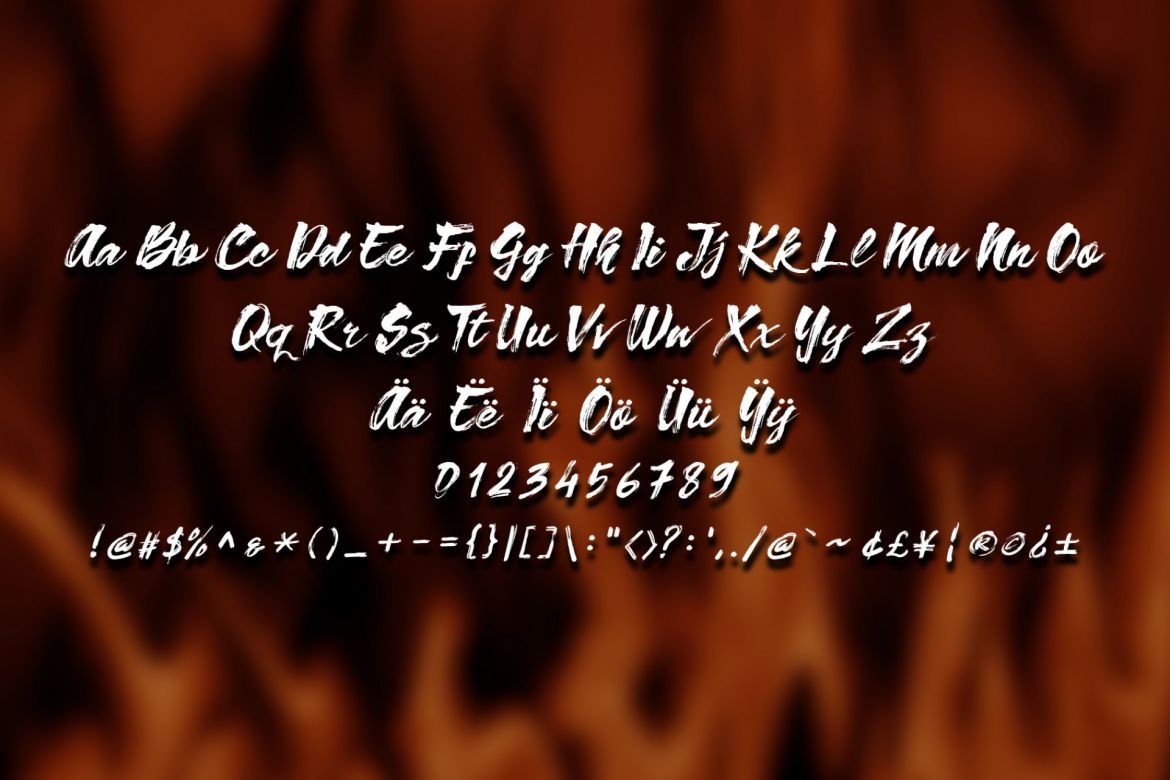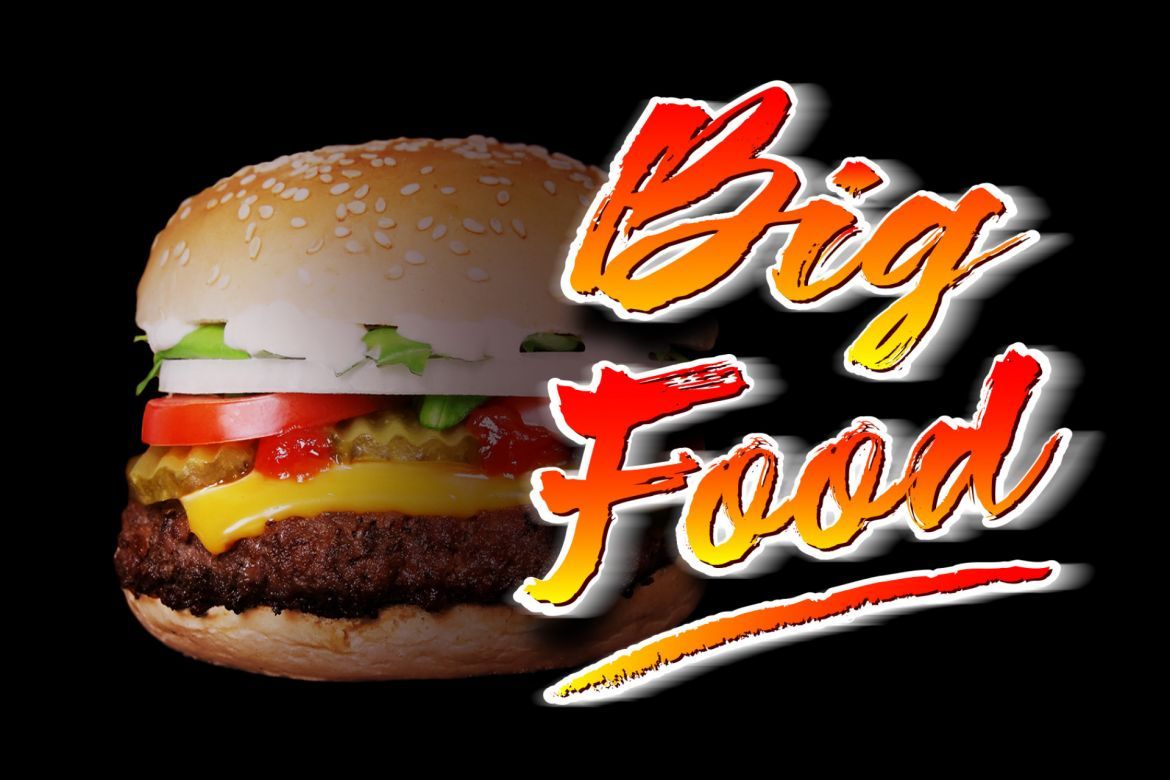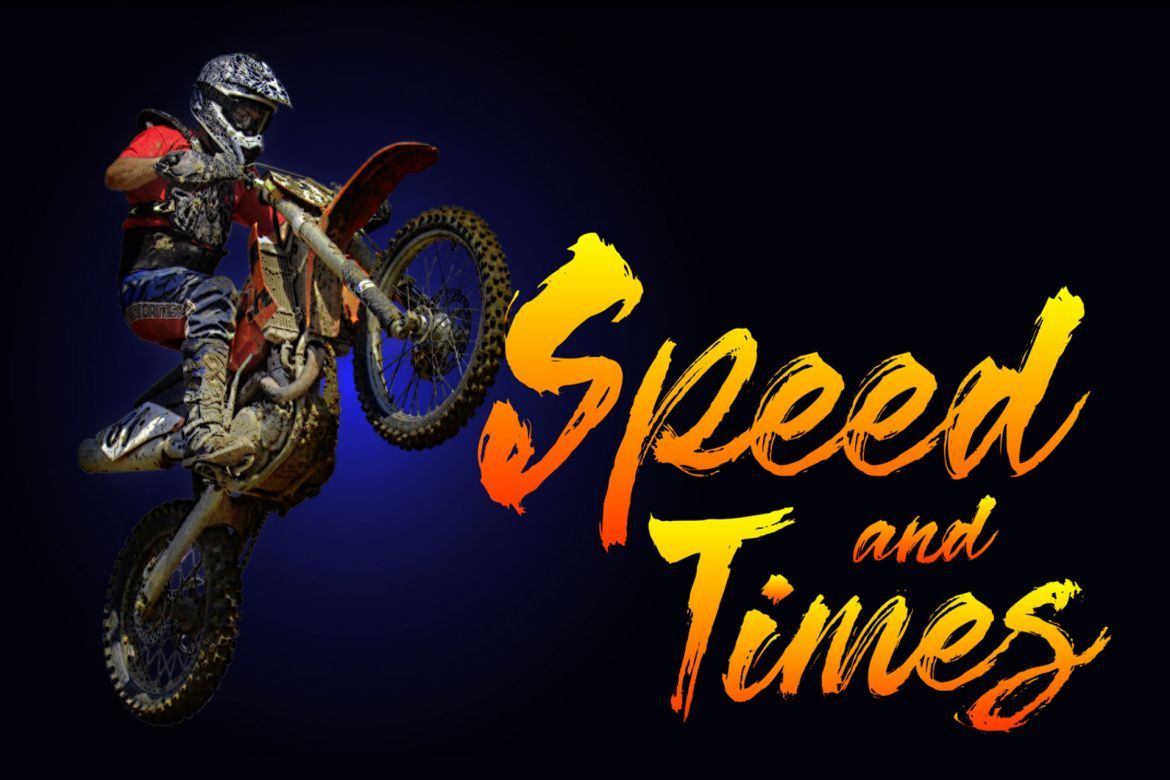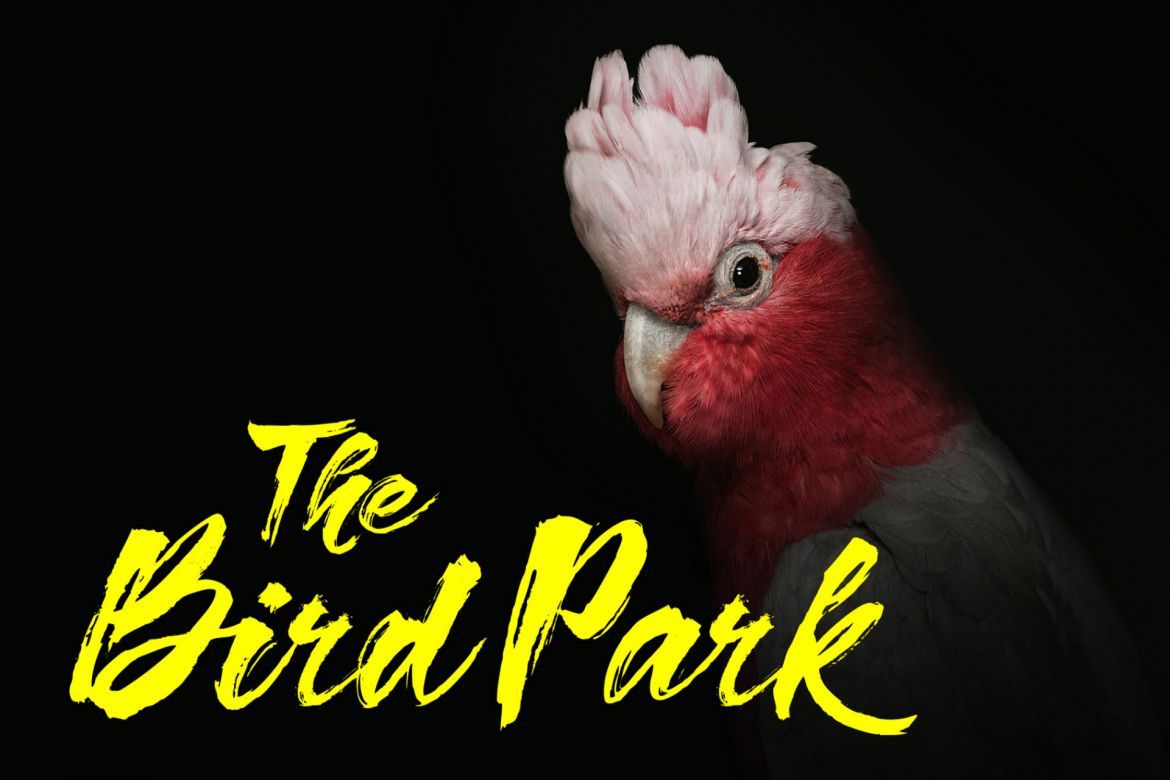
Hardy Blow Brushstroke Font
Hardy Blow is an awesome and dynamic script with a strong feel. Use it to turn any crafting job into an eye-catcher! Include TTF and OTF files. Enjoy it.
• brush stroke style